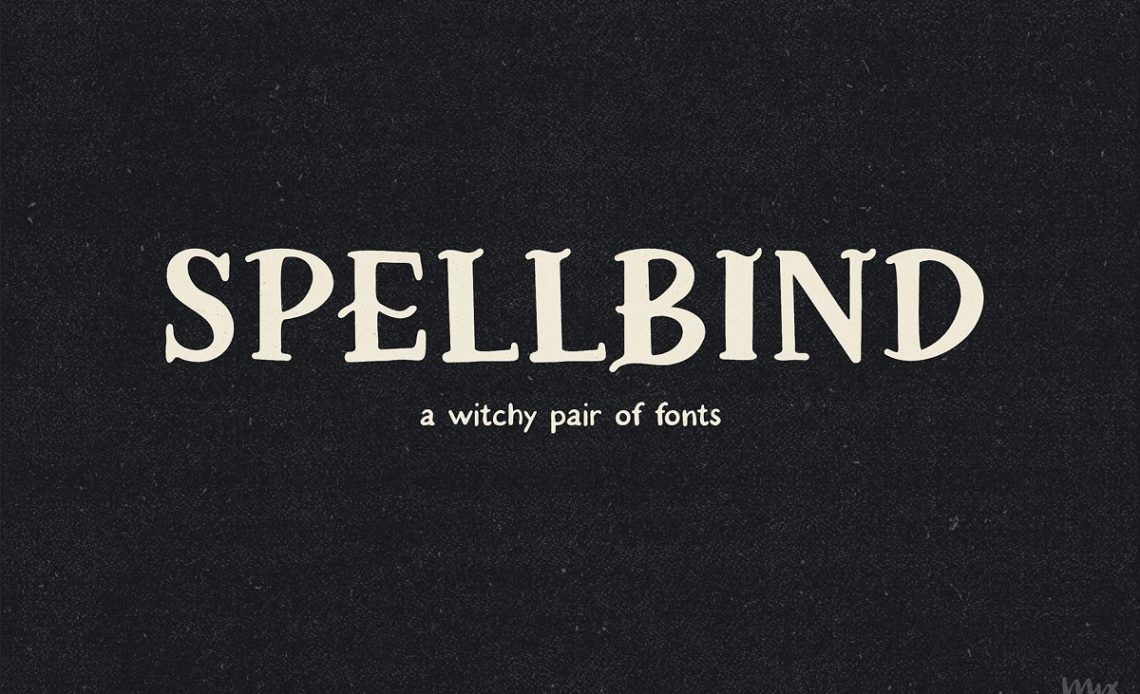
Welcome to the witching hour with Spellbind — A Witchy Font Pair, the best font for a Halloween sign. Created by Mikko Sumulong, this sans serif font family is the perfect choice for anyone who loves the look of a font with hexes and wibbles.
These fonts are more than just a collection of letters and numbers. They're a way to add a touch of magic and enchantment to your designs. The MIX SPELLBIND font family comes with a vast array of glyphs, allowing you to create eye-catching and unique designs.
So, whether you're a seasoned witch or just getting started on your witchy journey, Mix Spellbind — A Witchy Font Pair is the perfect addition to your design arsenal. Don't wait any longer, grab this font family and make anything spell-worthy today!